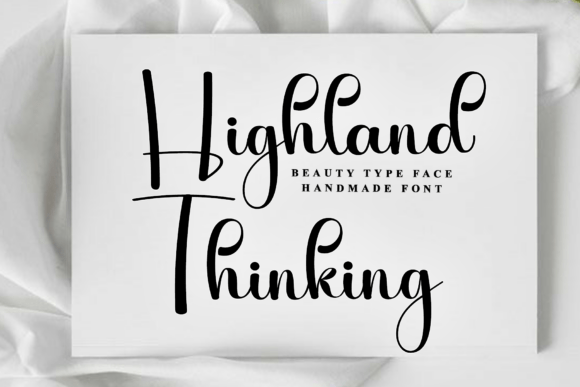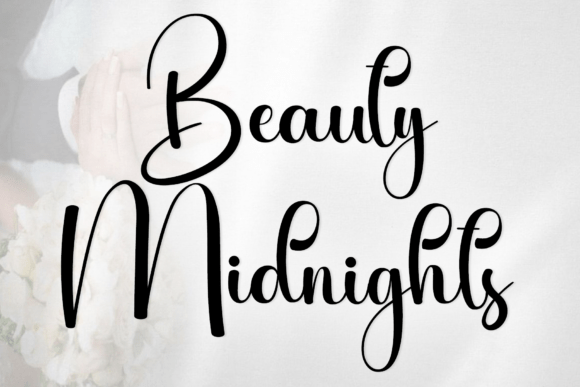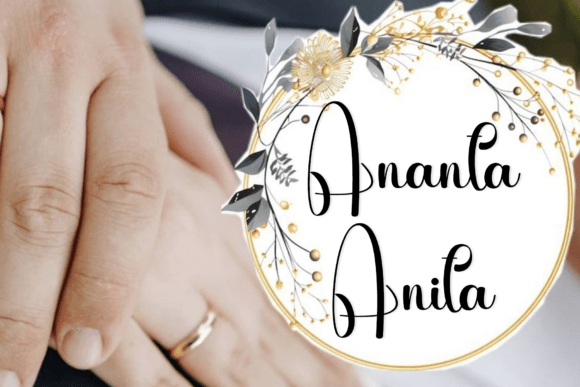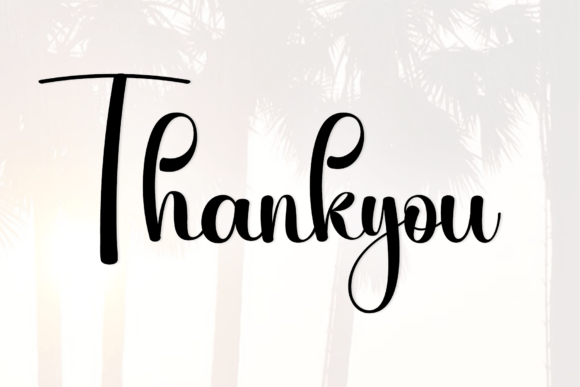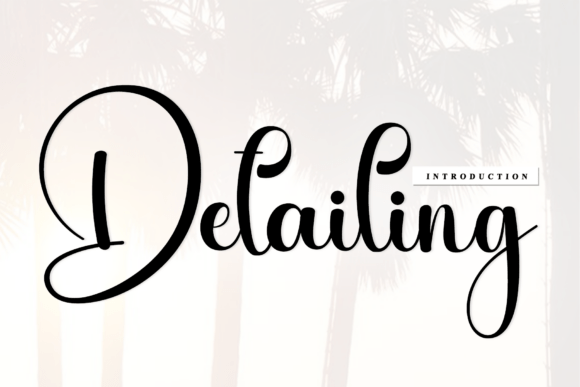
Introducing Detailing Font: Elevate Your Brand with Sophistication and Warmth
In the world of typography, few fonts manage to strike a balance between elegance and approachability. Detailing Font is one such exceptional typeface that seamlessly merges a calligraphic style with a warm, organic aesthetic. This sophisticated and rhythmic script font is designed to bring a touch of artisanal charm to various design projects, making it a premier choice for artisanal food branding, boutique product packaging, upscale lifestyle marketing, and creative editorial titles.
The Unique Charm of Detailing Font
The defining characteristic of Detailing Font is its use of sweeping, looping ascenders that create a sense of customized, artisanal artistry. These fluid strokes not only add a dynamic feel to the text but also infuse it with a personal touch, reminiscent of handcrafted goods and bespoke services. The font’s design is inspired by traditional calligraphy, yet it maintains a modern and versatile appeal that suits a wide range of applications.
Crafting a Distinct Brand Identity with Detailing Font
For artisanal food branding, Detailing Font offers a unique opportunity to stand out in a crowded market. The font’s elegant and approachable appearance can add a storybook charm to product labels, packaging, and marketing materials, making gourmet foods, specialty teas, and handcrafted beverages seem even more appealing and exclusive. Similarly, for boutique product packaging, the font provides a sophisticated and stylish solution that can elevate the perceived value of luxury goods, handmade jewelry, and high-end fashion items.
Enhancing Upscale Lifestyle Marketing and Editorial Projects
In the realm of upscale lifestyle marketing, Detailing Font proves to be an invaluable asset. Its refined and classy appearance makes it ideal for branding high-end real estate, bespoke travel services, and luxury automotive businesses. The font’s ability to convey a sense of exclusivity and personalized service can significantly enhance marketing efforts, making campaigns more engaging and memorable. For creative editorial titles, Detailing Font offers a stylish and attention-grabbing solution that can add a touch of sophistication to magazine covers, book titles, and digital content headers.
Why Choose Detailing Font?
There are several reasons why Detailing Font stands out as a top choice for designers and crafters:
- Sophisticated yet Approachable: The font strikes a perfect balance between elegance and warmth, making it suitable for a wide range of design projects.
- Versatile: Detailing Font can be used in various contexts, from artisanal branding and luxury packaging to editorial design and marketing materials.
- Customizable: The sweeping ascenders and looping strokes offer ample opportunities for creative customization, allowing designers to add their personal touch.
- Memorable: The unique appearance of Detailing Font ensures that brands and projects stand out, making them more memorable to the audience.
Tips for Using Detailing Font Effectively
To maximize the impact of Detailing Font, consider the following tips:
- Pair with Complementary Fonts: Combine Detailing Font with simpler, sans-serif fonts for body text to create a harmonious contrast.
- Adjust Letter Spacing: Experiment with letter spacing to enhance readability and ensure the text flows smoothly.
- Highlight Key Elements: Use size variations or color changes to emphasize certain words or phrases, drawing attention to the most important information.
- Consider Digital Enhancements: For digital applications, consider adding subtle animations or hover effects to bring the looping ascenders to life.
In conclusion, Detailing Font is a versatile and sophisticated typeface that brings a touch of artisanal elegance to any design project. Its unique blend of calligraphic style and organic warmth makes it an excellent choice for designers and crafters looking to create distinctive and memorable brands, packaging, marketing materials, and editorial content. With its sweeping ascenders and looping strokes, Detailing Font is poised to elevate your designs to new heights of sophistication and charm.